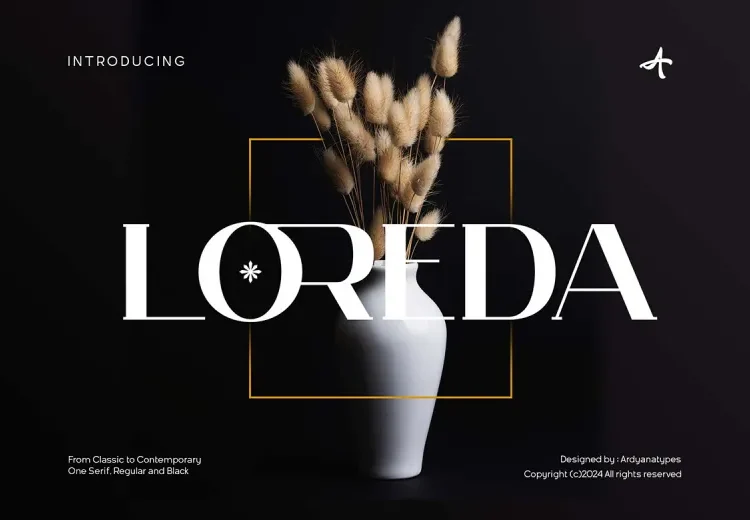
Loreda Font
Loreda is a contemporary serif font designed to exude sophistication and class. Crafted by Ardyanatypes, this font embodies modern professionalism, making it an excellent choice for enhancing the corporate image of business organizations. Whether you are creating business cards, name tags, or uniforms, Loreda offers a refined and polished look that aligns with high standards of elegance.
The font’s versatility extends beyond traditional business uses. Loreda is ideal for embossing applications, providing a distinguished appearance that stands out in both print and digital formats. Its elegant design also makes it well-suited for use in office decor, such as stickers or signage, contributing a touch of class to your workspace.
Additionally, Loreda is a fitting choice for book covers and magazine articles, where its sophisticated style can enhance the overall aesthetic of your publication. Its modern yet timeless character ensures that it remains relevant across various design contexts.